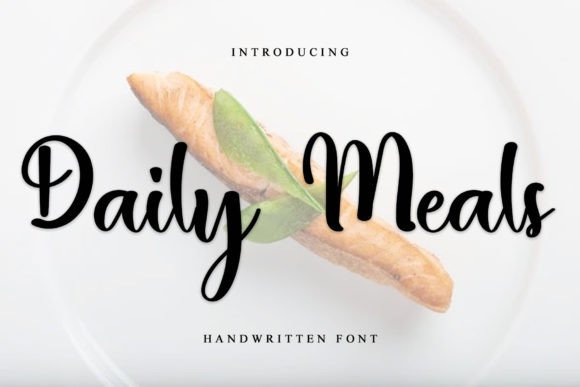
Introducing Daily Meals Font, a handwritten masterpiece brimming with elegance and charm. This script font, meticulously crafted by PiPi Creative, is a timeless treasure that will elevate your designs to new heights. As you immerse yourself in the world of Daily Meals, you'll discover a symphony of graceful curves and elegant strokes, each letter a work of art.
With Daily Meals, your words will dance across the page, capturing the attention of all who behold them. Whether you're a seasoned designer or just starting out, this font is your passport to creating designs that resonate with your audience. Unleash your creativity and let Daily Meals transform your projects into stunning expressions of art.
Imagine your logos, invitations, branding, and social media posts adorned with the elegance of Daily Meals. Let your signature shine through, as this font captures the essence of your unique style. With Daily Meals, every word becomes a statement, every design a masterpiece.